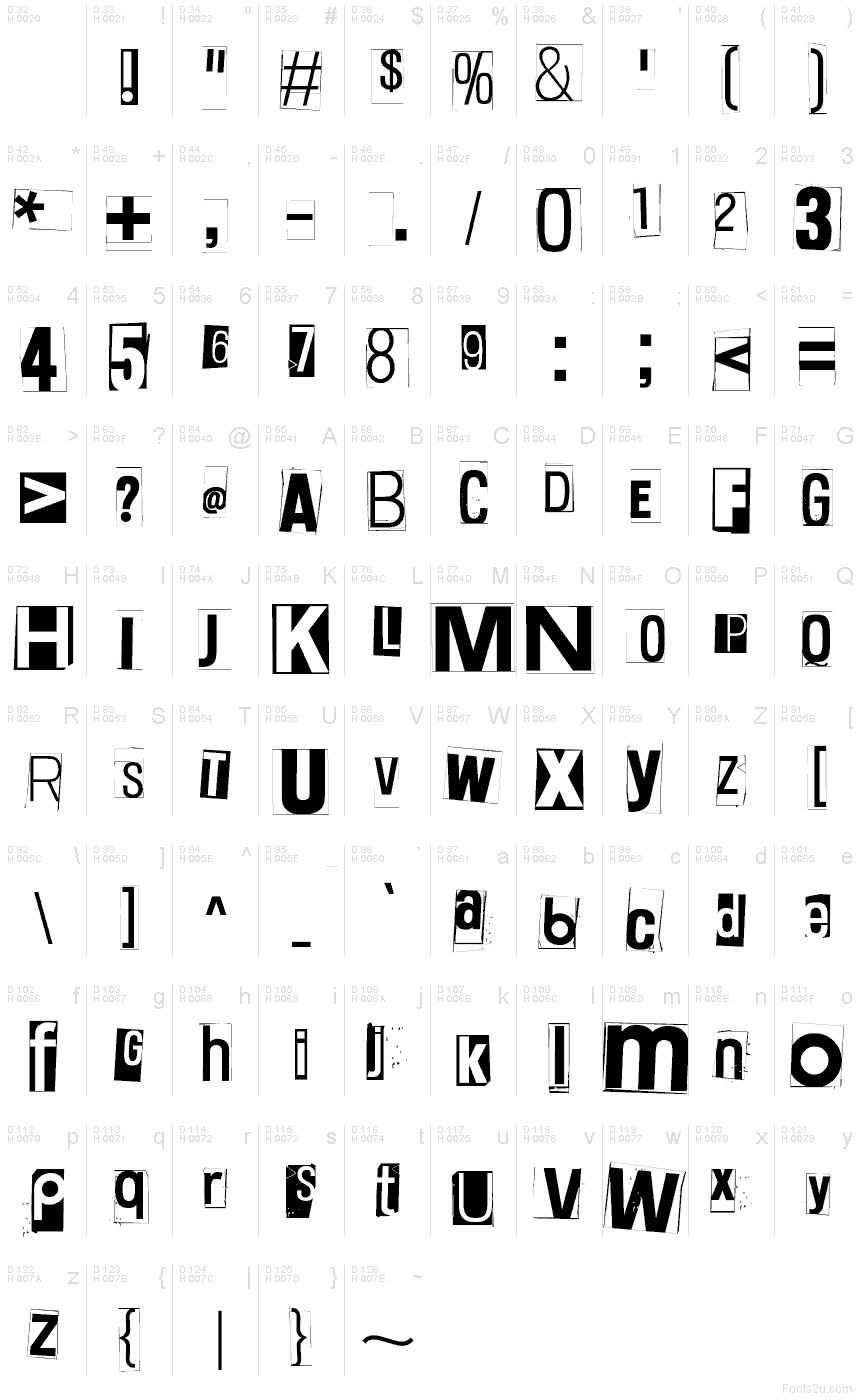
White Square Red Yes Black Eight
White Square Red Yes Black Eight font by Juha Korhonen is a free bold distorted display font. Built from jittery square tiles with flip-flopped black-and-white fills, it feels like a ransom-note collage run through a photocopier one too many times. Edges nick, counters punch out, and the baseline staggers just enough to create a restless, high-contrast rhythm that grabs attention from across the room.
Using White Square Red Yes Black Eight, headlines snap with cut-and-paste energy that shines on gig posters, zines, album covers, protest graphics, thriller book jackets, and escape-room flyers. The squarish modules pack tightly, so short words read like graphic badges; longer titles form a crunchy, staggered stripe that directs the eye. For balance, pair this free font with a neutral grotesque or monospace for small text, and give it a touch of extra line spacing when stacking lines.
White Square Red Yes Black Eight